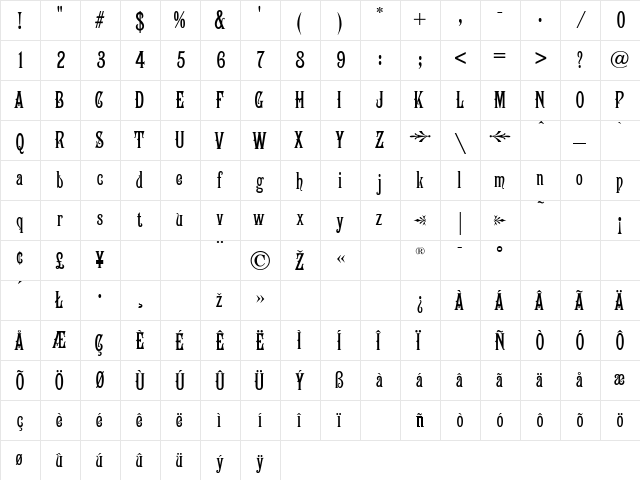
Campanile Regular
Design Context for Campanile Typeface
Campanile is a composed and adaptable typeface that performs quietly and consistently across a wide range of design contexts.